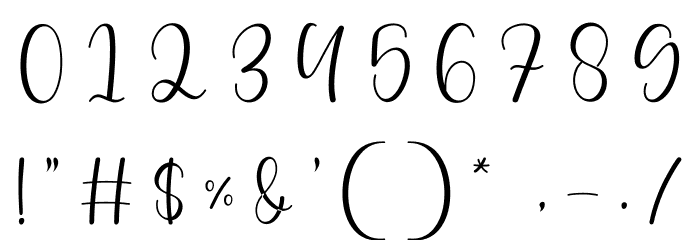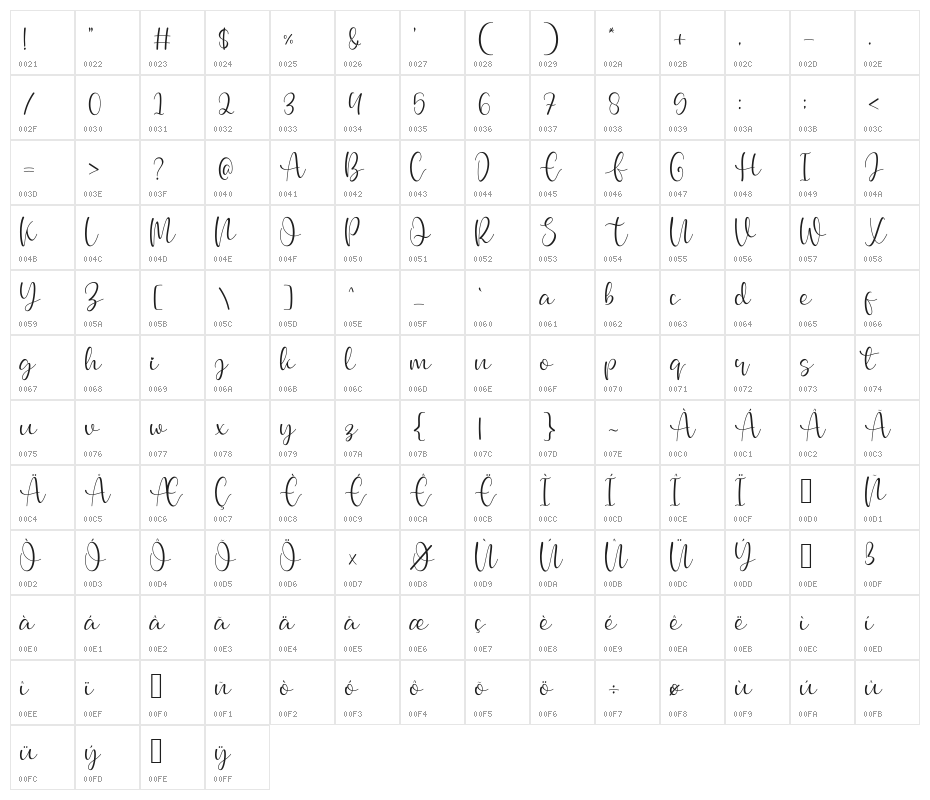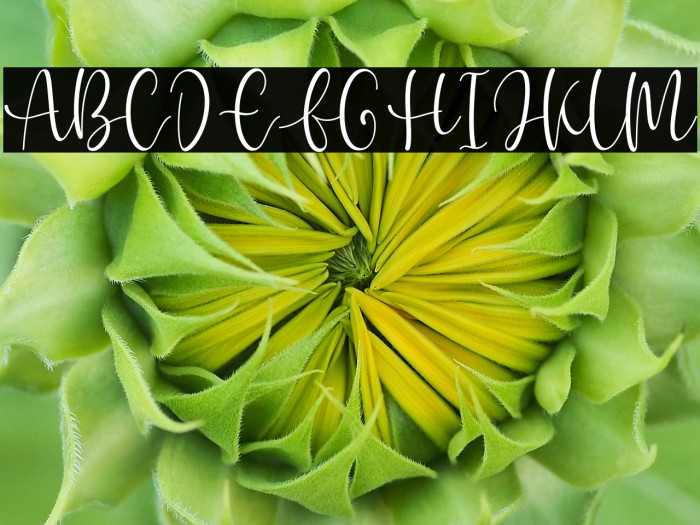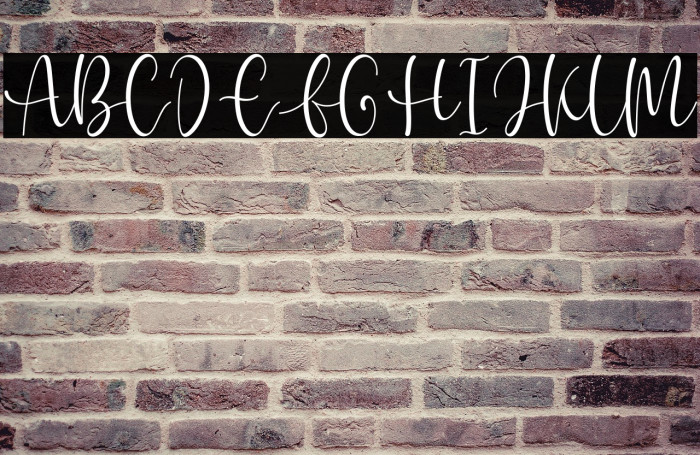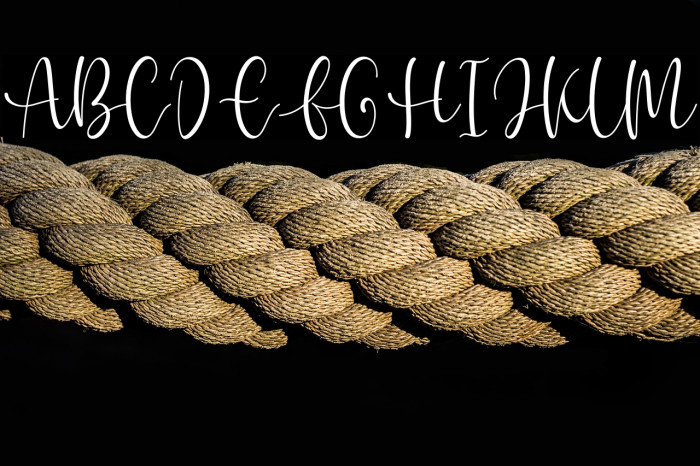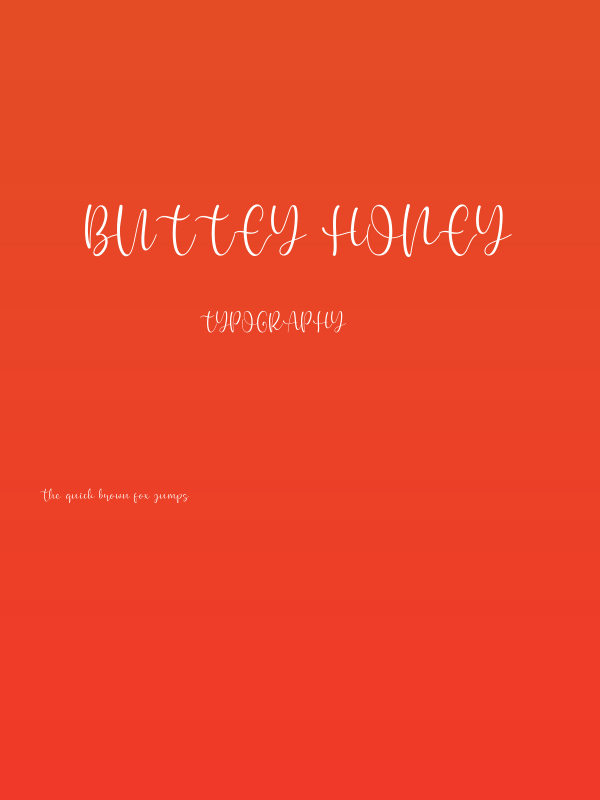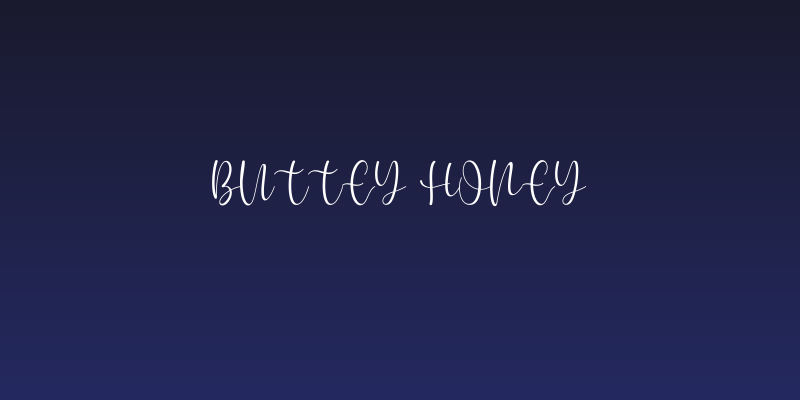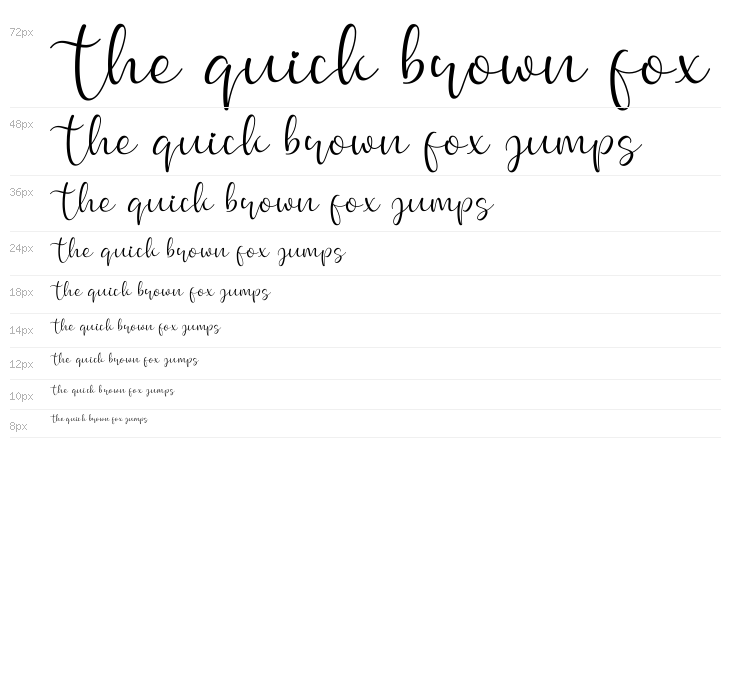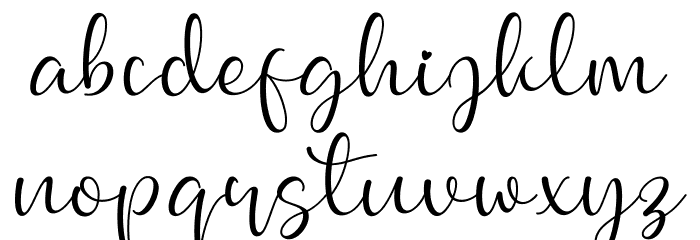
Buttey Honey Font
Buttey Honey Description
This font features a flowing, cursive style that exudes elegance and charm. The letters are interconnected with smooth, sweeping strokes that give it a handwritten feel. The uppercase letters are slightly more ornate, with some featuring loops and flourishes, while the lowercase letters maintain a consistent, fluid motion. The numerals are clear and maintain the same cursive style, ensuring readability. Special characters are designed to complement the overall aesthetic, with a playful yet sophisticated touch. This font is perfect for projects that require a personal, artistic touch.
Use CaseLogos, Invitations, Decorative text
Proposed ProjectsIdeal for wedding invitations, greeting cards, branding, and social media graphics.